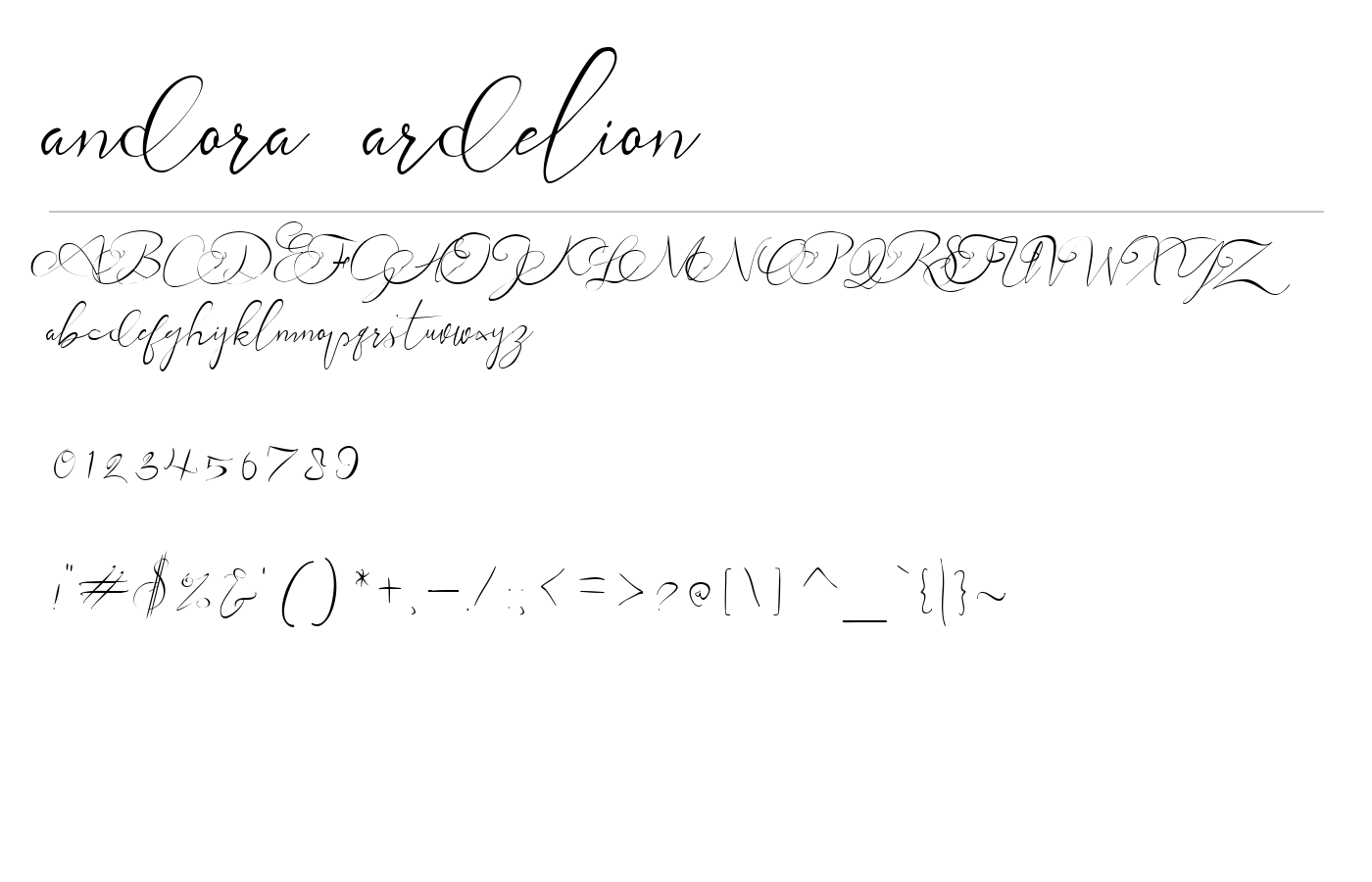
Andora Ardelion is a delicate script font that features elegant, flowing letterforms with fine, calligraphic strokes. Its high-contrast thin lines and intricate swashes give it a sophisticated and romantic feel, making it ideal for wedding invitations, luxury branding, and artistic headlines where a graceful and refined touch is desired. This font brings a sense of personal elegance and charm, perfect for designs that want to convey beauty and sophistication.
andora ardelion Font
About andora ardelion Font